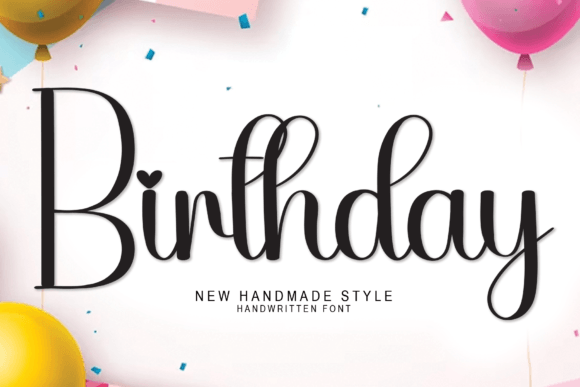
Unleash the Joy of Birthdays with the Perfect Font
Remember the excitement of designing your first birthday card for a loved one? You spent hours pouring over ideas, carefully selecting the perfect colors and decorations to make it truly special. But the real magic happened when you added that final touch – the font. The right font can elevate any design and make it truly unforgettable. That’s where the Birthday Font comes in – a beautiful, casual handwritten font that’s sure to bring a smile to anyone’s face.
With its versatility and effortless charm, the Birthday Font is a valuable addition to any designer’s toolkit. Whether you’re working on a birthday party invitation, a greeting card, or a social media post, this font is sure to add a personal touch that sets your design apart. By incorporating the Birthday Font into your creative ideas, you’ll be able to create truly unique and memorable designs that will leave a lasting impression.
Birthday Font Key Features
- Unique Characteristics: Features customizable colors, animated effects, and a playful, celebratory feel
- Font Style: Script, cursive, and handwritten font styles available
Birthday Font Review
At first glance, the Birthday Font seems like a fun and playful way to celebrate any occasion. I was immediately drawn in by the bright, colorful swashes and the unique, handwritten feel. ✨ The font is perfect for adding a touch of whimsy to invitations, party decorations, or even social media posts.
- Customizable color palette: The Birthday Font comes with a wide range of color options, allowing you to match the mood and style of your event.
- Variety of swashes: The font includes multiple swashes and flourishes, giving you plenty of options for adding personality to your designs.
- Highly legible: Despite its playful feel, the Birthday Font is surprisingly easy to read, making it a great choice for event signage and banners.
However, I do have a few concerns about the font’s limitations. ⚠️ For one, the font is only available in a few different font weights, which may limit its versatility in certain design contexts. Additionally, the font’s intricate swashes can make it difficult to read in certain font sizes or resolutions.
Overall, I think the Birthday Font is a fun and creative addition to any designer’s toolkit. While it may not be the most versatile font, it’s perfect for adding a touch of personality to event designs and party decorations.
Use the Birthday Font for creating birthday invitations, party decorations, and personalized gifts.
Combine the Birthday Font with other festive elements, such as balloons and confetti, to create a fun and celebratory atmosphere.
Carolyna Pro is a modern, elegant script font that can add a touch of sophistication to your birthday designs. It is ideal for designing birthday invitations, greeting cards, and other party-related materials. Compared to Birthday Font, Carolyna Pro has a more refined and polished look, making it suitable for upscale events and parties.
What is the recommended font size for the Birthday Font?
The recommended font size for the Birthday Font is between 24-48 points. This size range provides optimal readability and visual appeal. However, you can adjust the font size to suit your design needs and preferences.